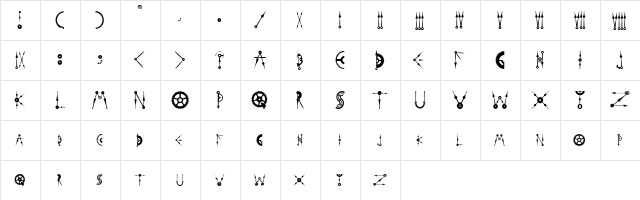
Time to get a Watch Regular
| Foundry | Melissa Choyce |
| Designer | Melissa Choyce |
Design Context for Time to get a Watch Typeface
Time to get a Watch is a composed and adaptable typeface that performs quietly and consistently across a wide range of design contexts.